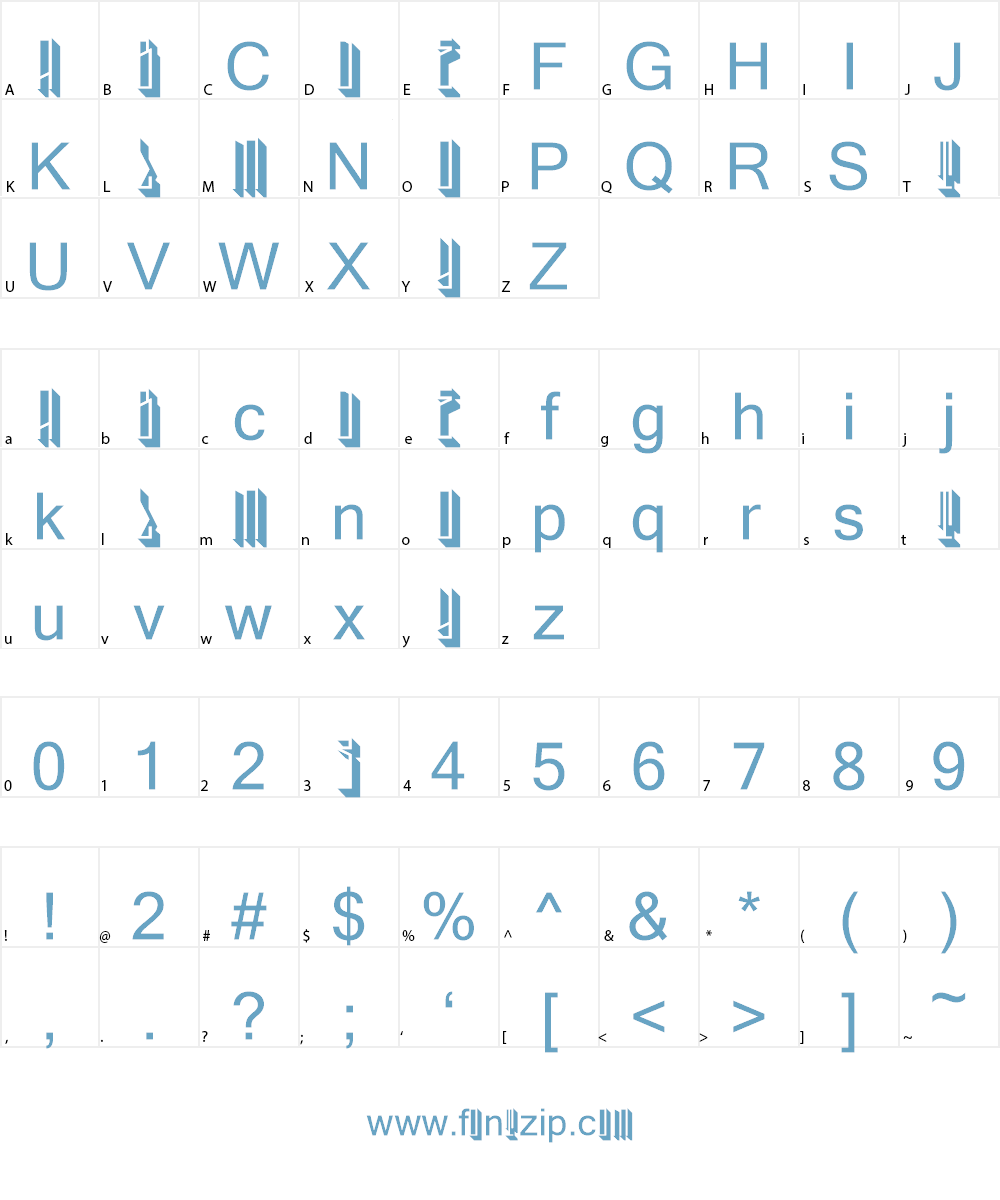
Tall Boy 3D is a 3D shadow version of our font Tall Boy West. The 3D effect is inspired by the cover of the novel The Amazing Adventures of Kavalier & Clay, by Michael Chabon, as applied to our Tall Boy West font. The typeface is by far the most challenging font project we have ever worked on.
Tall Boy 3D v1.10 adds extended language support, subscript and superscript numbers, and corrections to the metrics.